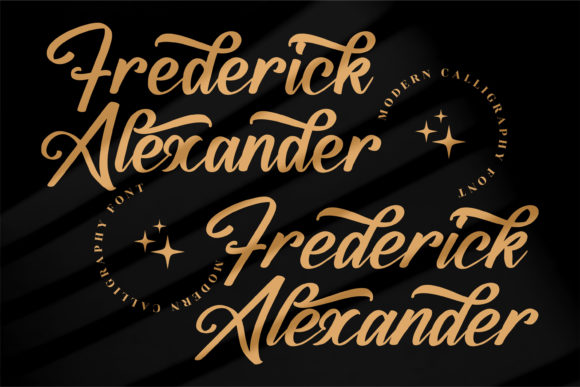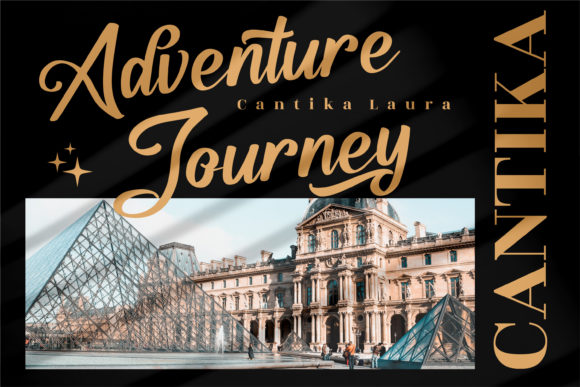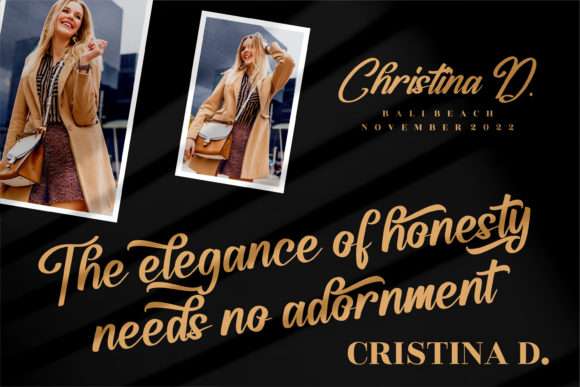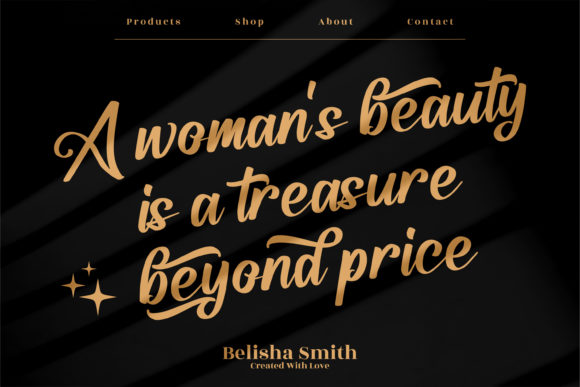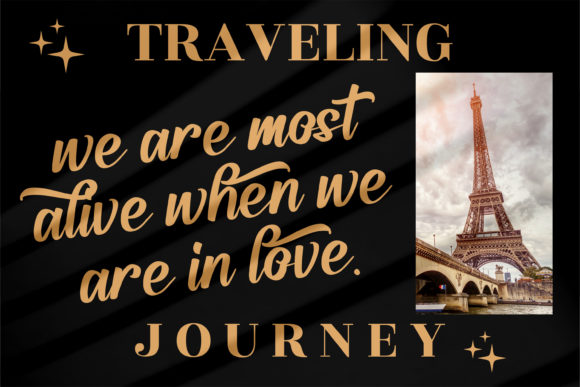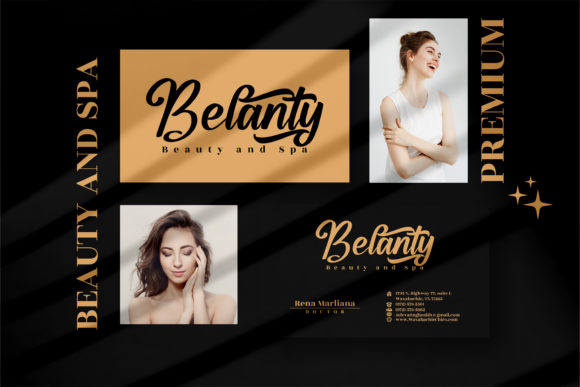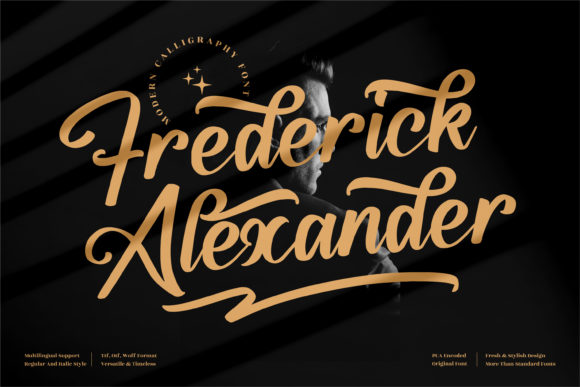
Discover the Elegance of Frederick Alexander Font: A Timeless Choice for Designers and Crafters
Are you on the hunt for a font that exudes elegance, sophistication, and a touch of timeless charm? Look no further than the Frederick Alexander font. This lovely handwritten font has captured the hearts of designers and crafters alike, and for good reason. In this article, we’ll dive into the world of Frederick Alexander, exploring its unique features, benefits, and uses.
A Lovely and Timeless Handwritten Font
Frederick Alexander is a beautifully crafted handwritten font that boasts a classic, timeless feel. Its elegant strokes and flowing curves make it perfect for creating eye-catching logos, branding materials, and quotes. Whether you’re working on a personal project or a client’s, this font is sure to impress.
One of the standout features of Frederick Alexander is its versatility. This font can be used in a wide range of design applications, from digital projects to print materials. Its clear, readable script makes it ideal for body text, while its decorative swashes and glyphs add a touch of flair to headings and titles.
Frederick Alexander is PUA (Private Use Area) encoded, which means that accessing its extensive range of glyphs and swashes is a breeze. With PUA encoding, you can easily access the font’s alternate characters, ligatures, and ornaments using your design software. This feature makes it simple to add a personal touch to your designs, setting them apart from the crowd.
Ideal for Logos, Branding, and Quotes
So, what makes Frederick Alexander the perfect choice for logos, branding, and quotes? For starters, its elegant script and classic feel make it instantly recognizable as high-end. This font is perfect for:
- Logos: Create a lasting impression with a custom logo that showcases your brand’s personality and style.
- Branding: Establish a cohesive visual identity with Frederick Alexander’s elegant script and decorative swashes.
- Quotes: Add a touch of sophistication to your inspirational quotes, making them perfect for social media, blogs, or print materials.
Frederick Alexander offers a range of benefits for designers and crafters, including:
- Ease of use: PUA encoding makes it simple to access the font’s extensive range of glyphs and swashes.
- Versatility: Use Frederick Alexander in a wide range of design applications, from digital projects to print materials.
- Elegance: Add a touch of sophistication and timeless charm to your designs.
- Customization: With its extensive range of glyphs and swashes, you can easily customize Frederick Alexander to suit your design needs.
Tips for Using Frederick Alexander
To get the most out of Frederick Alexander, here are a few tips to keep in mind:
- Experiment with swashes: Add a personal touch to your designs by experimenting with the font’s decorative swashes and glyphs.
- Mix and match: Combine Frederick Alexander with other fonts to create a unique visual identity.
- Pay attention to spacing: Make sure to adjust the spacing between letters to ensure your text looks elegant and refined.
In conclusion, Frederick Alexander is a lovely and timeless handwritten font that’s perfect for designers and crafters looking to add a touch of elegance and sophistication to their work. With its PUA encoding, extensive range of glyphs and swashes, and versatile design, this font is sure to become a favorite in your design arsenal. So why wait? Discover the charm of Frederick Alexander today and take your designs to the next level.